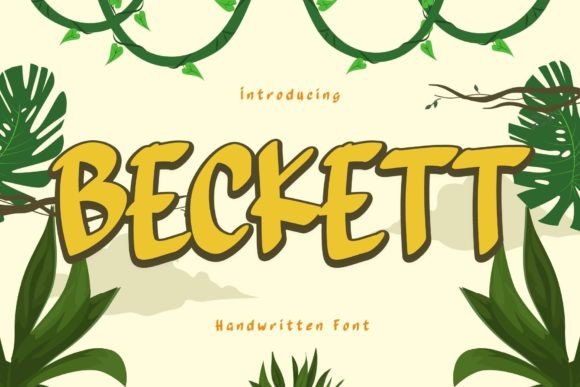
Introducing Beckett Font - The Gateway to Creative Expression and Visual Impact
In a world saturated with digital noise, standing out requires a unique visual identity that speaks volumes. Enter Beckett Font, a captivating handwritten display font that breathes life into your creative endeavors, transforming ordinary designs into extraordinary masterpieces. With its playful and authentic charm, Beckett Font empowers you to make a statement that resonates with your audience.
Unleash the boundless possibilities of Beckett Font and embark on a design journey like no other. Whether you're crafting captivating blog posts, designing eye-catching logos and branding, or creating memorable ads, invitations, and greeting cards, Beckett Font will elevate your creations to new heights. Its versatility extends to planners, photo albums, decorations, and much more, making it the perfect choice for any project that demands a touch of handwritten elegance.
Immerse yourself in the world of Beckett Font and discover a font that embodies the essence of creativity and authenticity. Watch as your designs come alive with personality, capturing the attention of your audience and leaving a lasting impression. Embrace the power of visual storytelling and let Beckett Font be your guide, transforming your ideas into captivating realities.